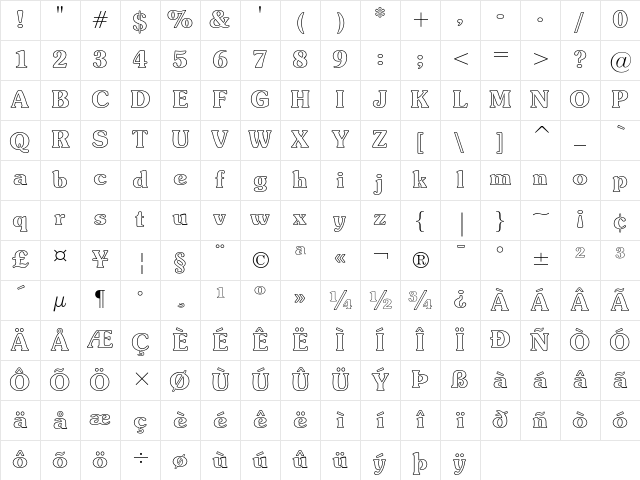
ITC Souvenir Bold Outline
Style: Bold Outline
Design Context for ITC Souvenir
ITC Souvenir is built around its visual character rather than neutral utility - its distinctive forms are designed to make an impression at display sizes. Its bold stroke weight gives it real presence on the page.
Font Pairing: Pair with a clean neutral sans-serif for body copy to let ITC Souvenir's character lead without overwhelming the composition.
Pro Tip: Use ITC Souvenir exclusively at display sizes - it was designed to be seen, not read at length. Let a neutral companion handle body copy.